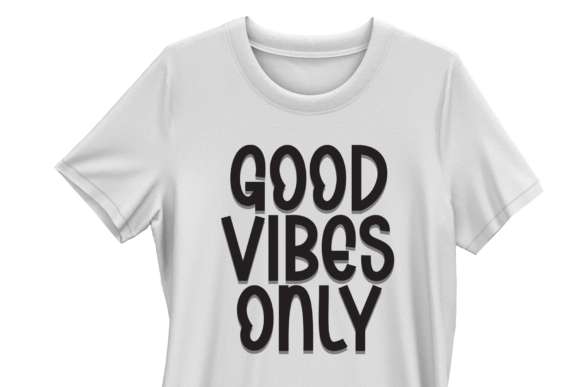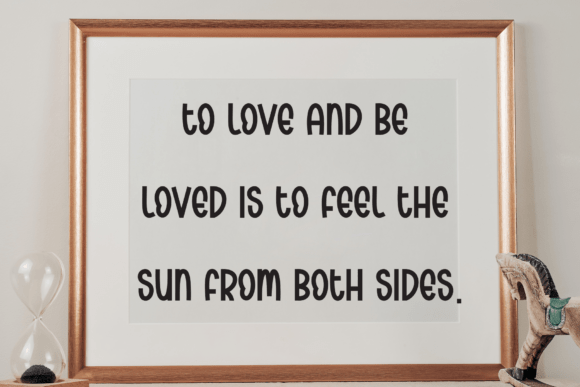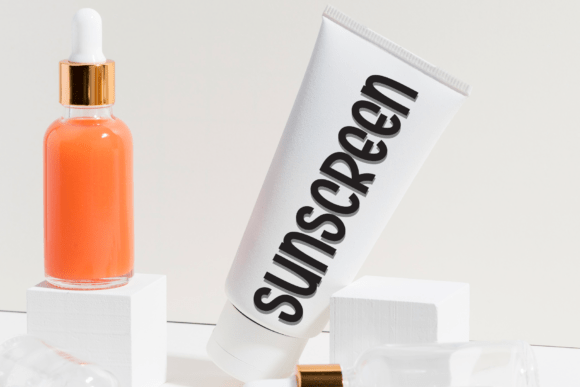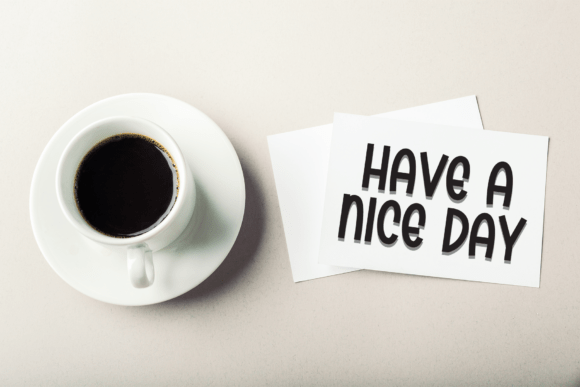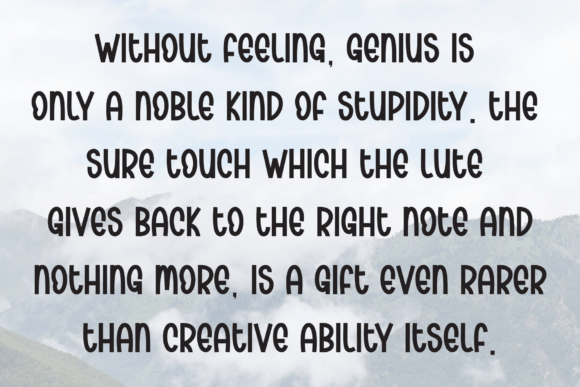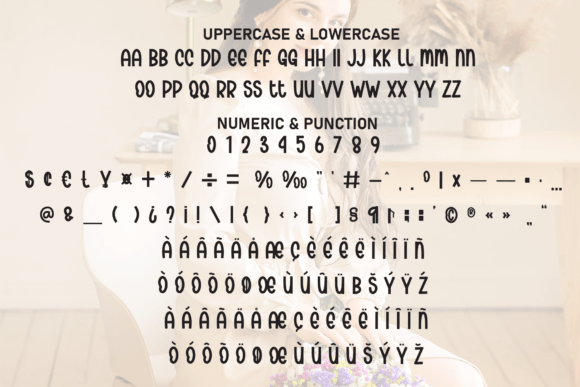
Doodle Stylish Font: Elevate Your Designs with a Fresh and Friendly Vibe
In the world of typography, the right font can make all the difference in elevating your design from ordinary to extraordinary. If you’re a designer or crafter looking for a font that exudes a fresh, friendly vibe, look no further than Doodle Stylish Font. This casual and neat display font is perfect for a variety of design projects, from packaging and posters to social media graphics and more.
Clean Lines and Relaxed Structure
One of the standout features of Doodle Stylish Font is its clean lines and relaxed structure. This font is designed to be approachable and easy to read, making it perfect for designs where clarity is key. The clean lines also give the font a polished appearance, making it suitable for a wide range of applications, from formal to informal.
Whether you’re designing a logo, creating a social media graphic, or crafting a poster, Doodle Stylish Font is the perfect choice. The font’s relaxed structure also gives it a friendly and approachable feel, making it ideal for brands that want to convey a sense of warmth and approachability.
Perfect for Packaging, Posters, and Social Media Graphics
Doodle Stylish Font is a versatile font that can be used in a variety of design projects. Its clean lines and relaxed structure make it perfect for:
- Packaging: Add a touch of freshness and friendliness to your product packaging with Doodle Stylish Font.
- Posters: Create eye-catching posters that grab attention with this stylish and approachable font.
- Social Media Graphics: Elevate your social media graphics with a font that’s both polished and friendly.
Adding Charm and Clarity to Your Projects
Doodle Stylish Font is designed to add charm and clarity to your projects. Its approachable design makes it easy to read and understand, while its polished appearance gives it a professional edge. Whether you’re designing for a brand or creating a personal project, this font is sure to impress.
One of the key benefits of using Doodle Stylish Font is its ability to add a touch of personality to your designs. The font’s friendly and approachable vibe makes it perfect for brands that want to convey a sense of warmth and approachability.
Why Choose Doodle Stylish Font?
So why choose Doodle Stylish Font over other fonts? Here are just a few reasons:
- Unique and stylish design
- Clean lines and relaxed structure
- Approachable and easy to read
- Perfect for a wide range of design projects
- Polished appearance
Tips for Using Doodle Stylish Font
Here are a few tips for using Doodle Stylish Font in your designs:
- Use it as a headline font to grab attention
- Pair it with other fonts to create a unique and stylish design
- Use it consistently across your design to create a cohesive look
In conclusion, Doodle Stylish Font is a versatile and stylish font that’s perfect for designers and crafters looking to elevate their designs. Its clean lines, relaxed structure, and approachable design make it perfect for a wide range of applications, from packaging and posters to social media graphics and more. With its polished appearance and friendly vibe, this font is sure to add charm and clarity to your projects.